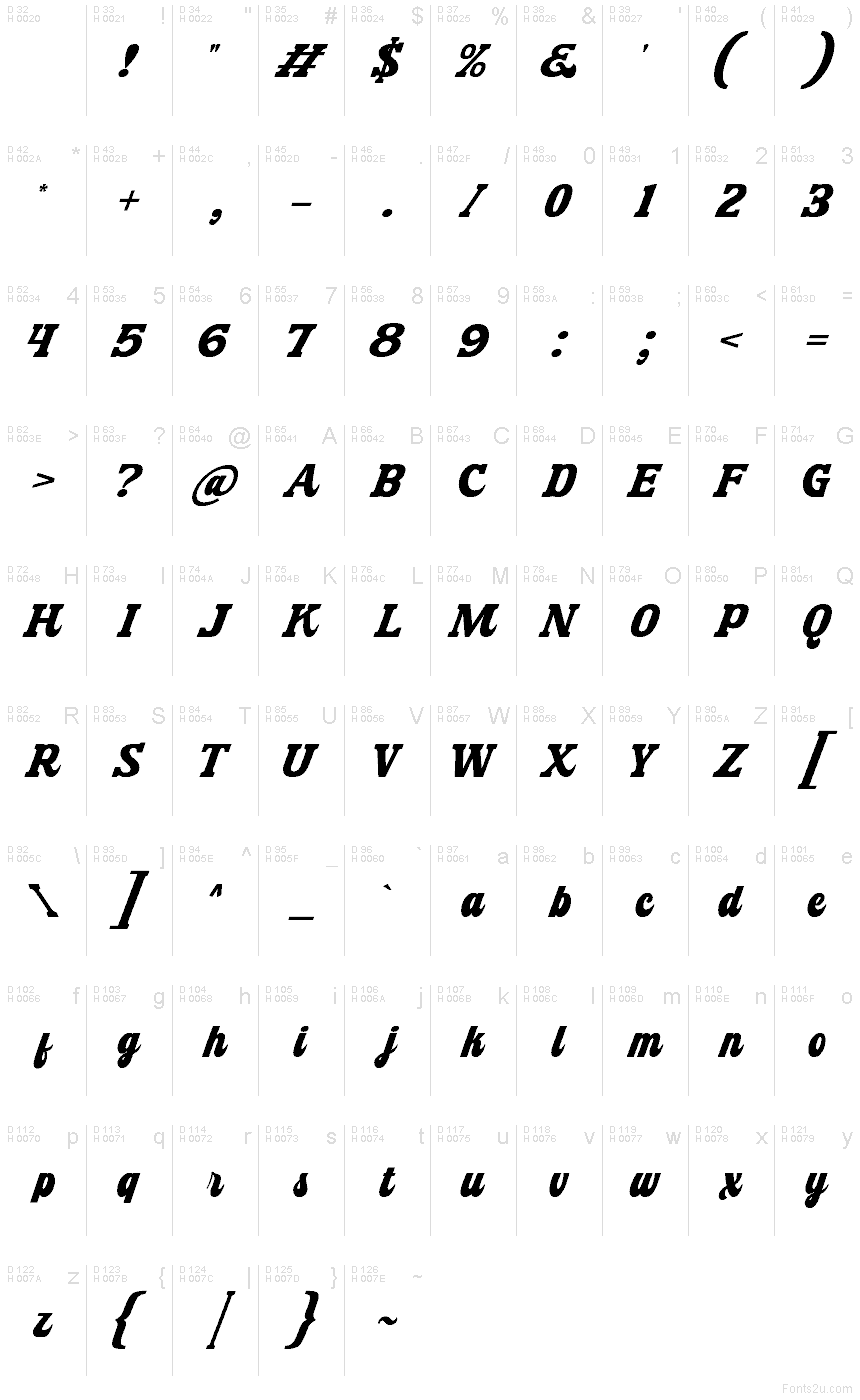
Machton
Machton font is a bold display typeface designed by HansCo, perfectly combining retro inspiration with a contemporary flair. Its sleek and fluid forms exude an expressive charm that's ideal for adding a dramatic presence to your visual compositions. Each aspect of this gorgeous free font connects seamlessly for a fascinating look that grasps immediate attention.